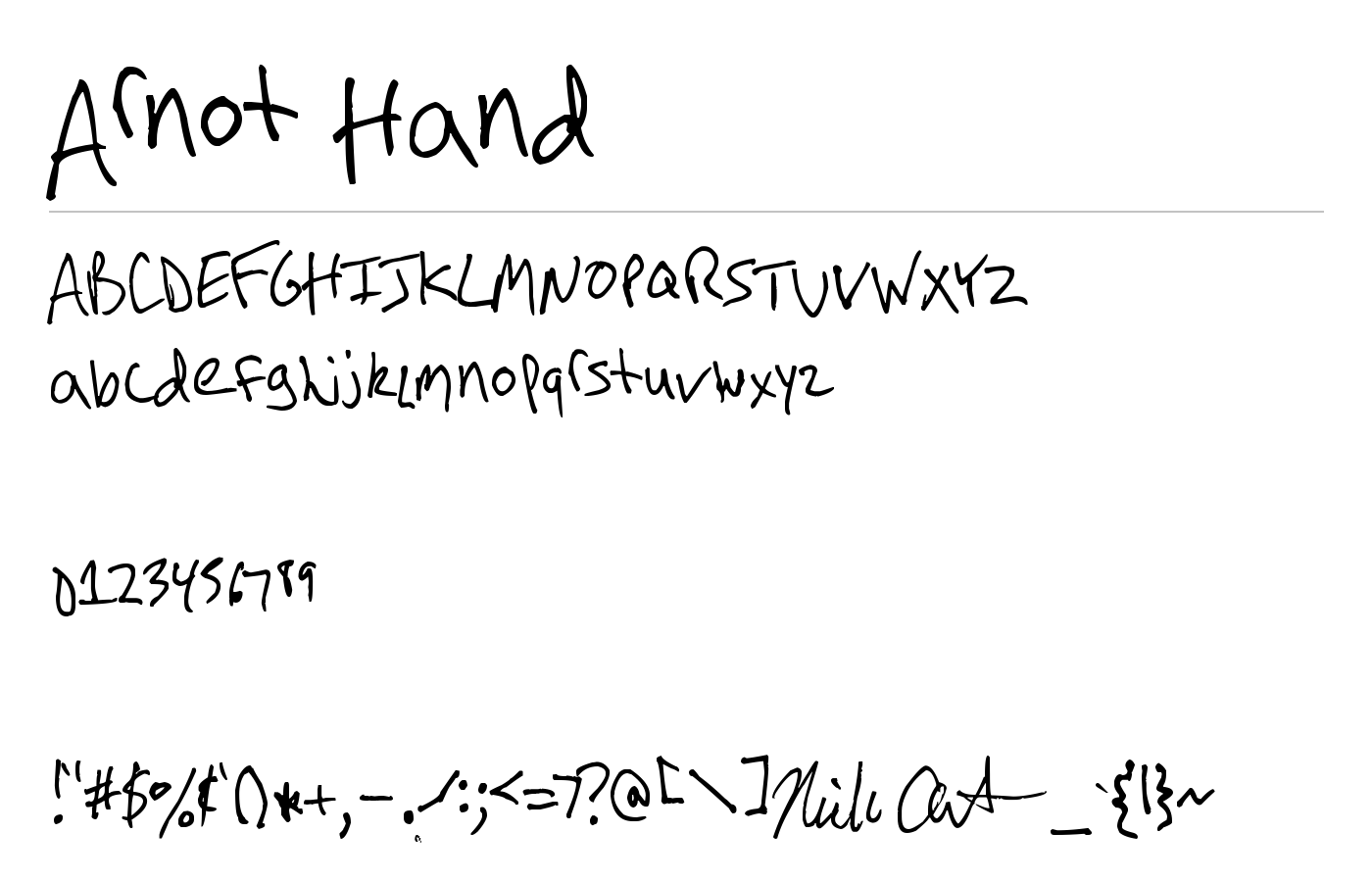
Arnot Hand is a quirky, casual handwritten font that brings a playful and personal touch to any design. Its uneven strokes and lively letterforms give it an authentic, organic feel, making it ideal for creative projects that seek a friendly and informal tone, such as invitations, social media graphics, or youth-focused branding. This font works best in headlines or short texts where its unique personality can truly stand out.
Arnot Hand Font
About Arnot Hand Font